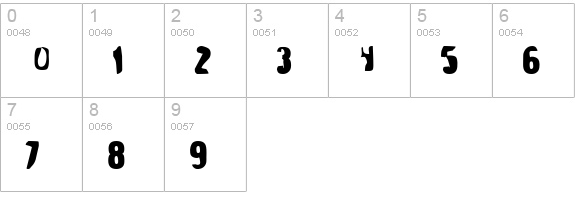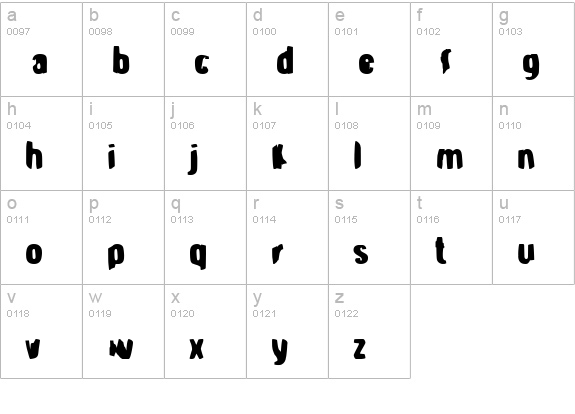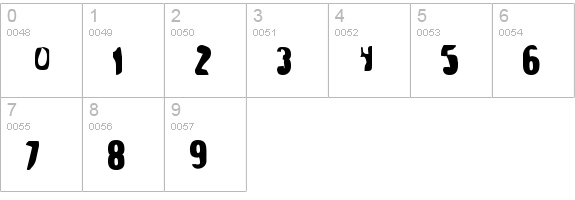
Strange Brew font is a whimsical and unique typeface that will add a touch of playfulness to your designs. With its quirky shapes and playful curls, this font is perfect for creating eye-catching titles, posters, and invitations. The irregular letterforms give Strange Brew a distinctive and edgy look, making it stand out from other fonts. What's even better is that Strange Brew font is completely free to download at FontsMarket.com. You can easily add this fun and unconventional font to your collection without breaking the bank. So go ahead and give your designs a touch of quirkiness with Strange Brew font today!